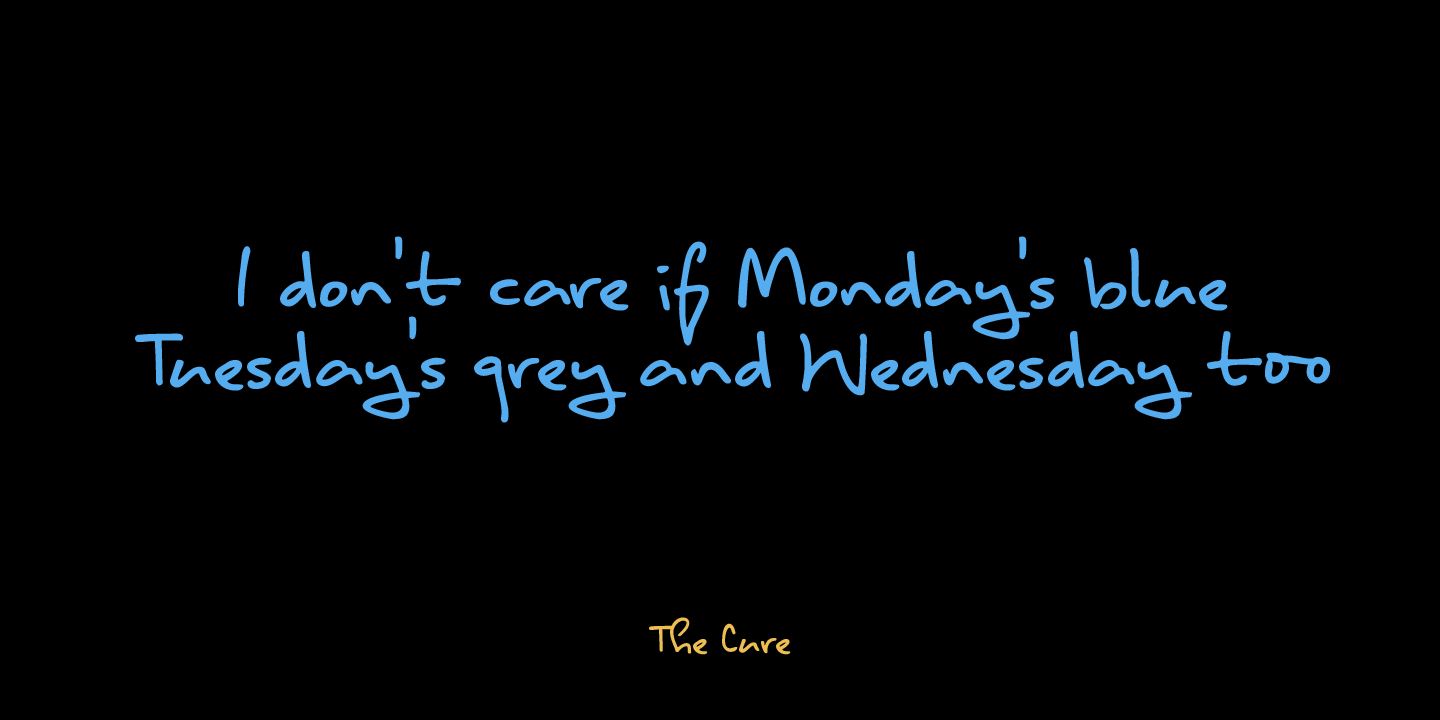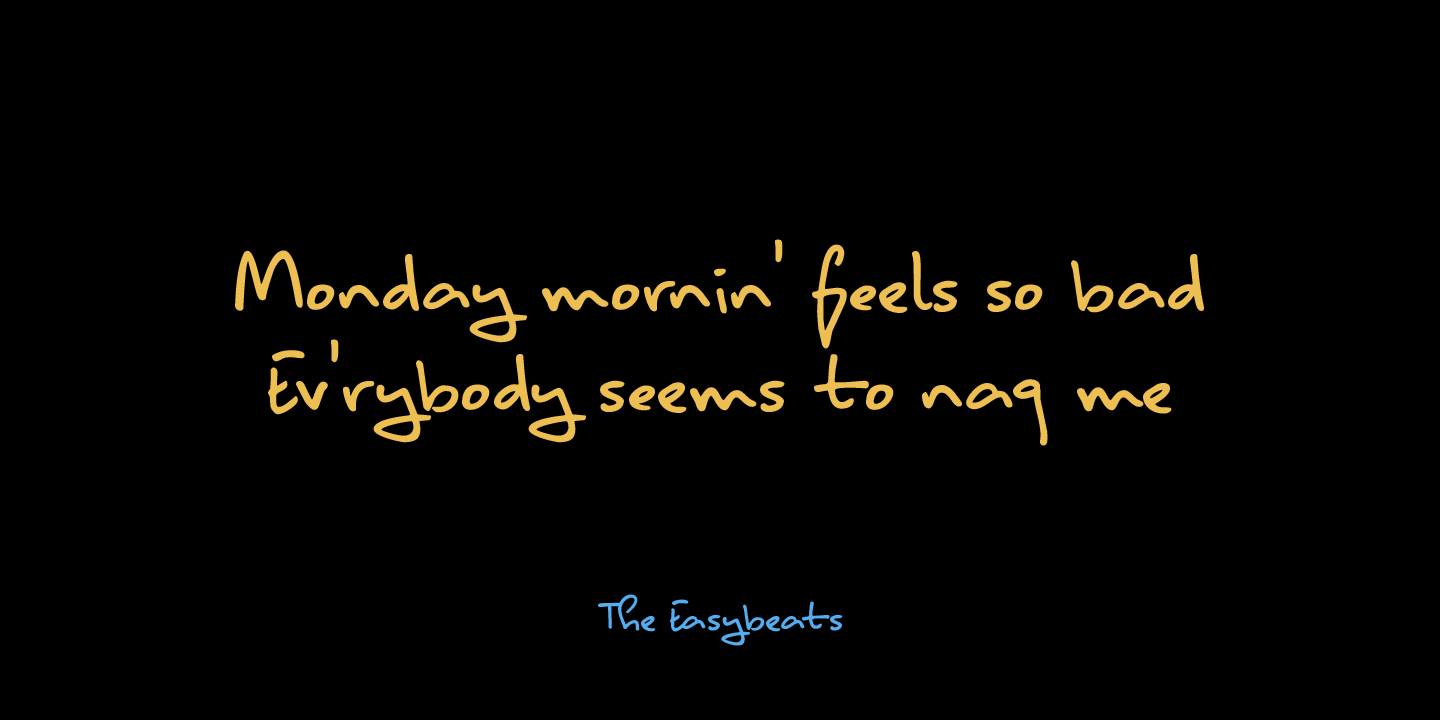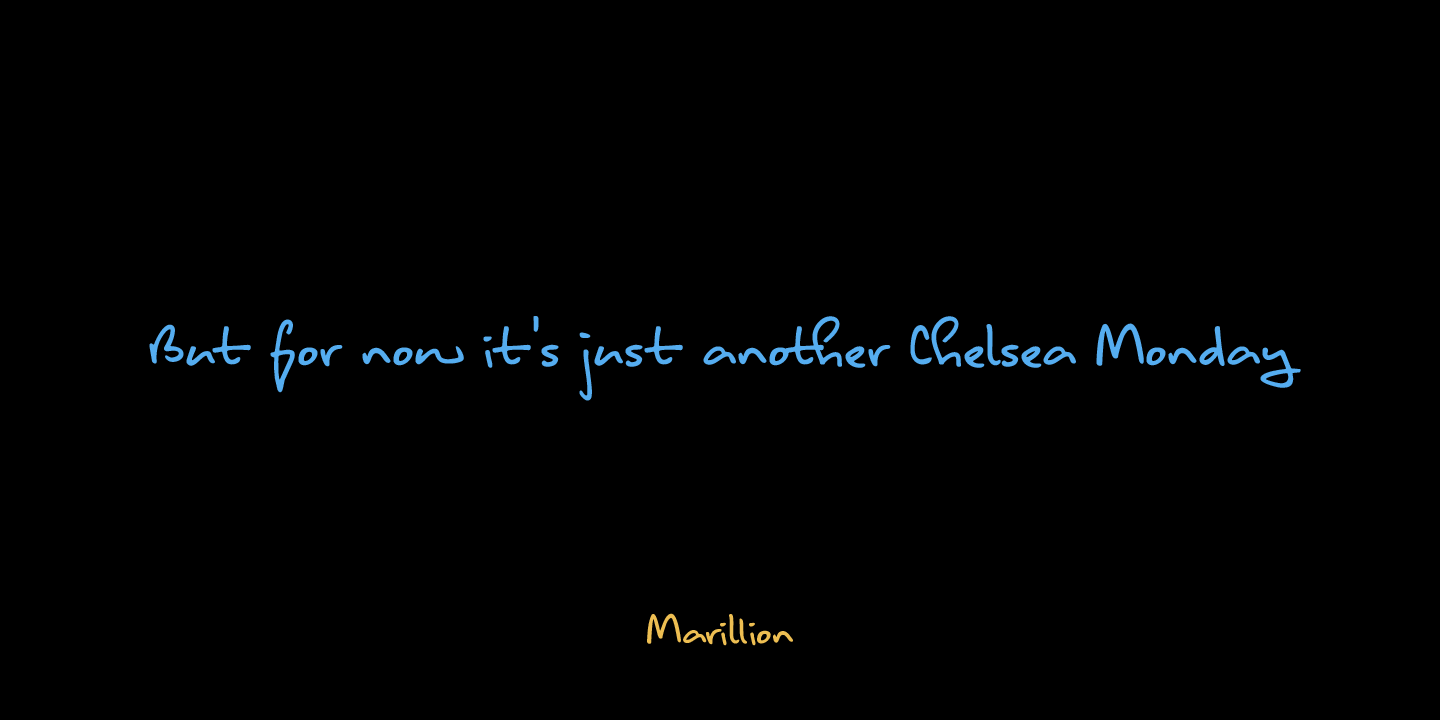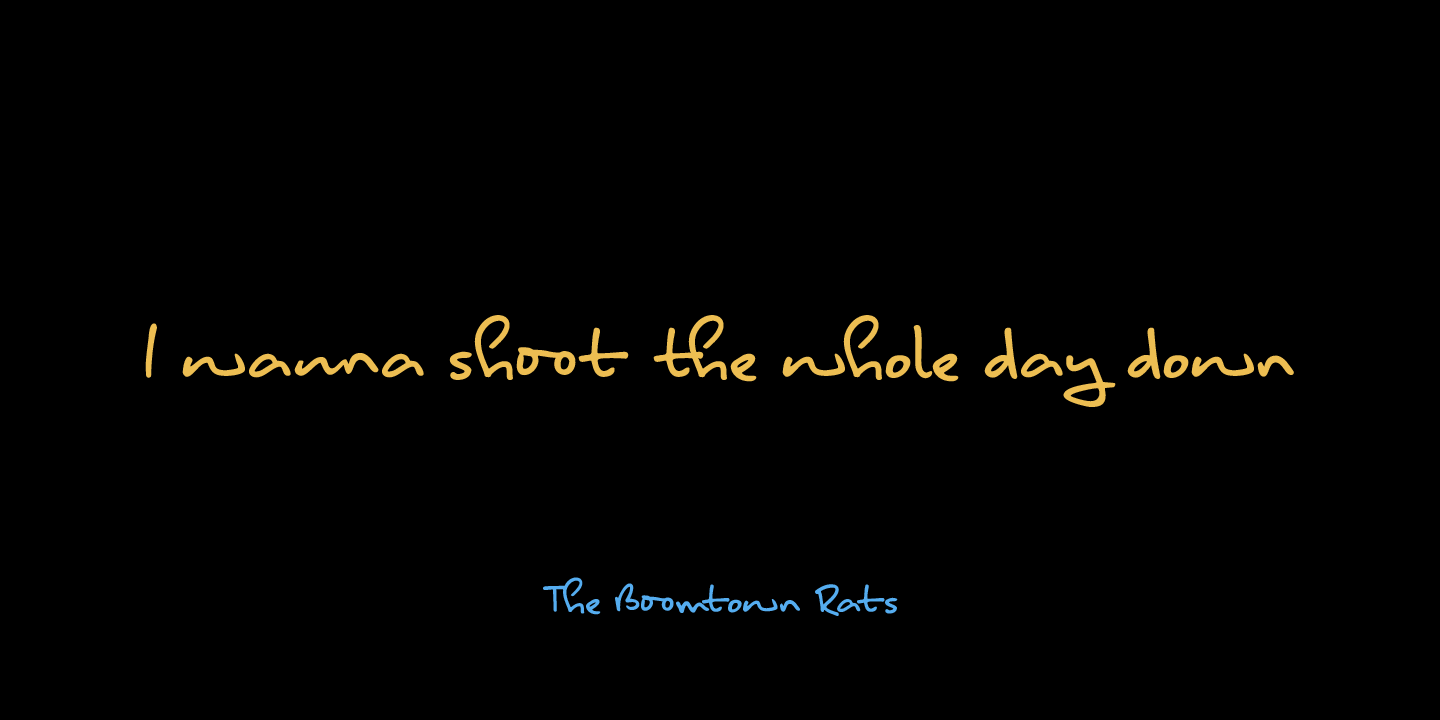
I started this font on a Monday and I finished it the Monday after, so I guess the name is right! Another Monday started off as a bit of doodling (with a Sharpie pen) on a piece of paper. Before I knew it, I had a complete glyph set and it looked nice.…